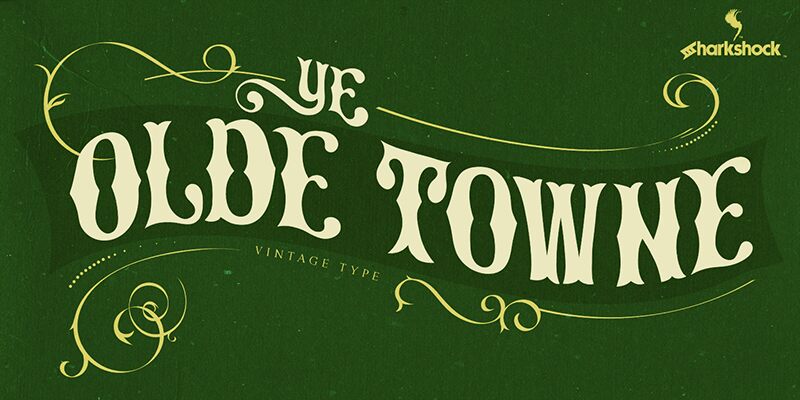
Ye Olde Towne font by Sharkshock is a free retro font carrying an old-world charm. The elaborate typeface combines ornate details with dramatic character strokes, oozing with vintage nostalgia. Inspired by bygone times, the font is full of unique personalities and exceptional artwork, capturing the interest of the modern-day designer.
Use Ye Olde Towne to create an authentic experience for your historical content, or use the free font in branding designs, social media posts, or packaging projects. The font is also suited for movie posters and projects whose theatrical elements can be easily translated with this font.
Ye Olde Towne is an all-caps display font that evokes warm feelings of nostalgia. Its vintage theme is inspired by the products, posters, and advertisements that defined the decorative arts movement of the early 1900s. The letterforms are highly stylized, featuring undulating strokes, stubby terminals, and unique fishtail serifs. With fluctuating spacing and glyph height, Ye Olde Towne has a loose and informal appearance, giving it a handcrafted look and a touch of authenticity. It is perfect for posters, publications, or festive holiday greetings.